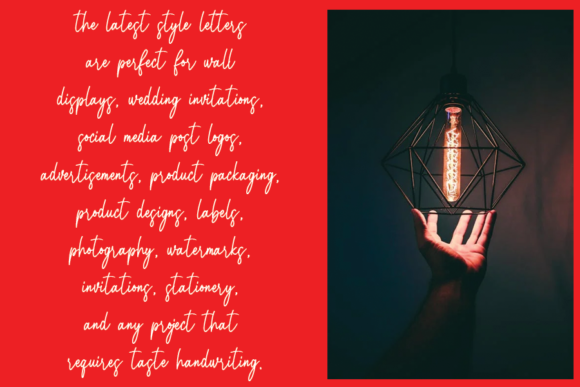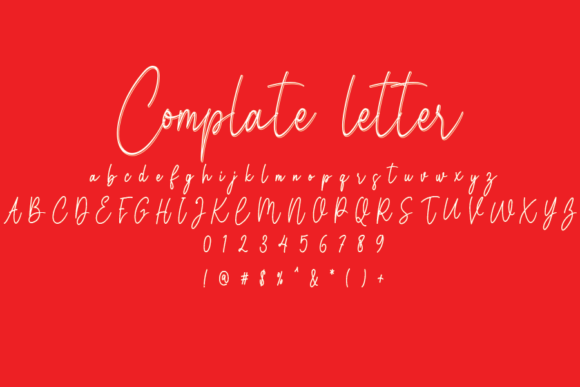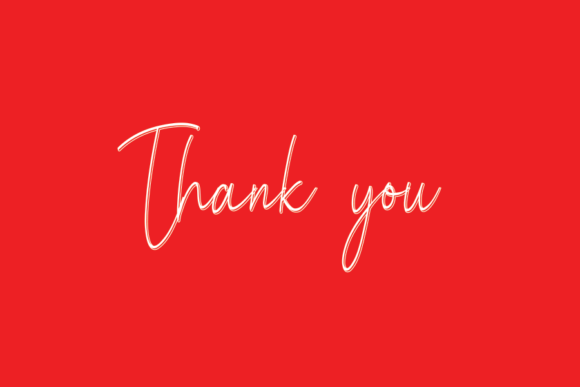
Introduction to Silhouette Font
Remember that moment when you’re brainstorming ideas for a new design project, and you stumble upon the perfect font? The one that makes everything fall into place, elevating your concept from good to great? For many designers, that moment comes with the Silhouette Font. Its elegant, handwritten style has been captivating creatives for years, and it’s easy to see why.
With its flowing curves and high-quality aesthetic, the Silhouette Font is the perfect design resource for any creative project. Whether you’re working on a logo, brochure, or social media graphic, this versatile font can add a touch of sophistication and timelessness to your work. Plus, with its transparent background option, you can easily combine it with other design elements to create stunning visual effects.
Key Features of Silhouette Font
- High-quality design with a transparent background, ideal for creative projects that require a clean and minimalist aesthetic.
- Features a unique, modern design that is perfect for use in logos, branding materials, and other creative projects.
Honest Review: Silhouette Font
I recently stumbled upon the Silhouette Font, and I must say it’s been a game-changer for my design projects. As a designer, I’m always on the lookout for high-quality fonts that can elevate my creative work. The Silhouette Font definitely delivers.
What I love about this font is its sleek and modern aesthetic. It’s perfect for designs that require a touch of sophistication and elegance. The transparent background makes it incredibly versatile, allowing me to easily combine it with other design elements.
Here are some of the key features that work well for me:
- ✨ Transparent background for easy combination with other elements
- ✨ Excellent design resource for modern and sophisticated designs
One limitation I’ve noticed is that the font may not be suitable for very small text sizes, as it can become difficult to read. However, this is a minor issue and doesn’t detract from the overall quality of the font.
Overall, I’m thoroughly impressed with the Silhouette Font. It’s a valuable addition to any designer’s toolkit, and I highly recommend it to anyone looking for a high-quality font for their creative projects.
What is Silhouette Font?
Silhouette Font is a high-quality design resource that offers a free download option, making it an ideal choice for creative projects. This font features a transparent background, allowing for easy customization and versatility.
Common Use Cases for Silhouette Font
Silhouette Font is commonly used for creative projects such as logos, graphics, presentations, social media graphics, and document design. Its high-quality and transparent background make it an ideal choice for designers and non-designers alike.